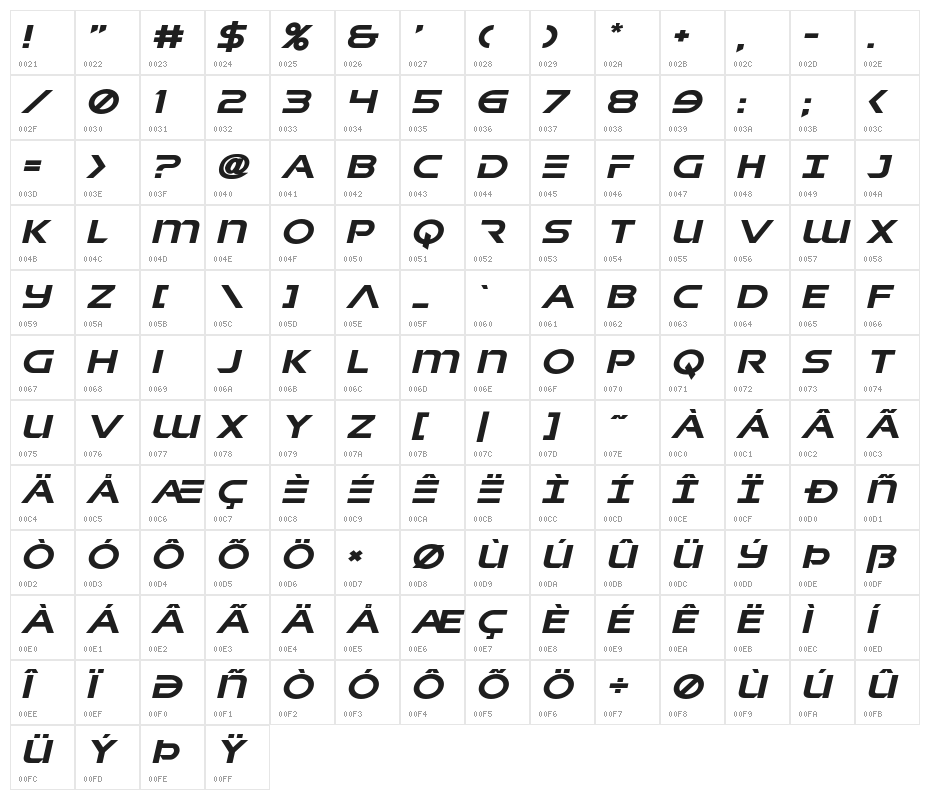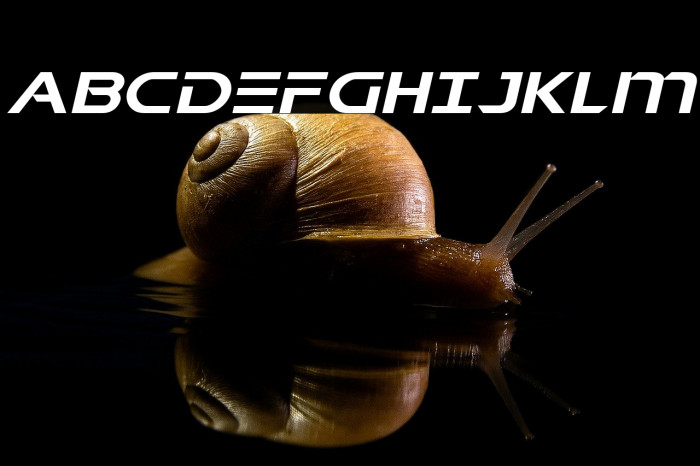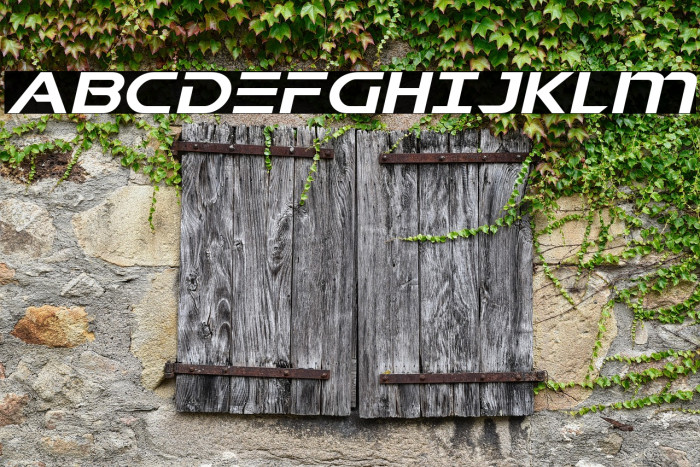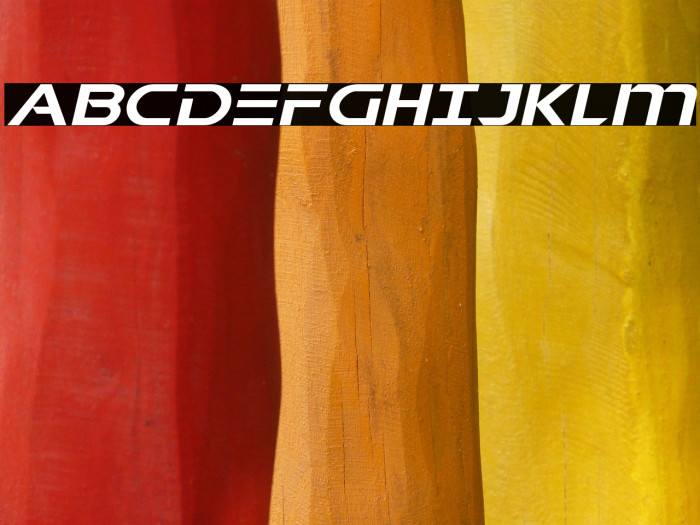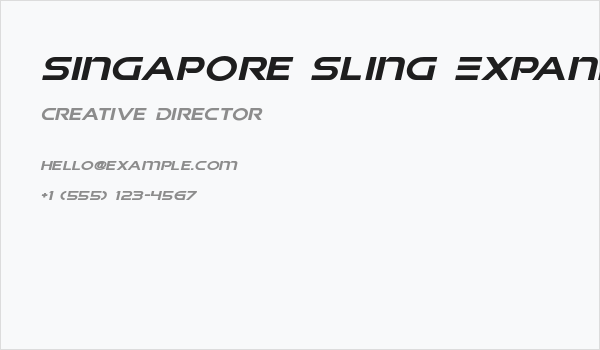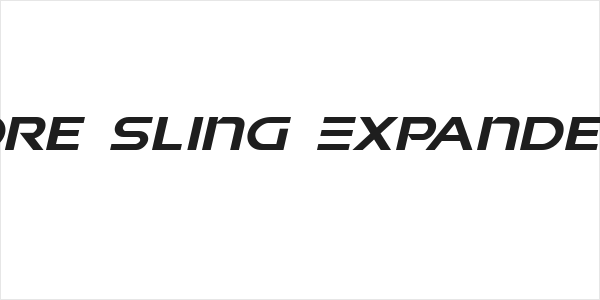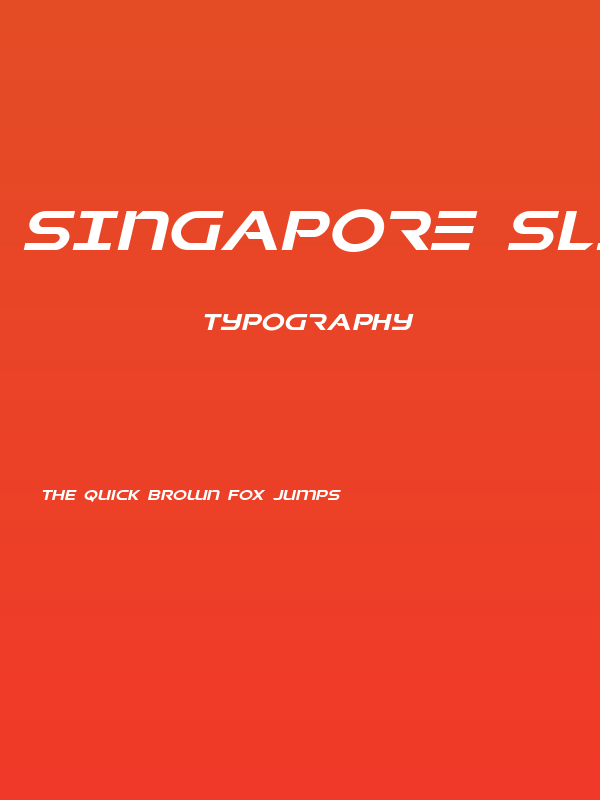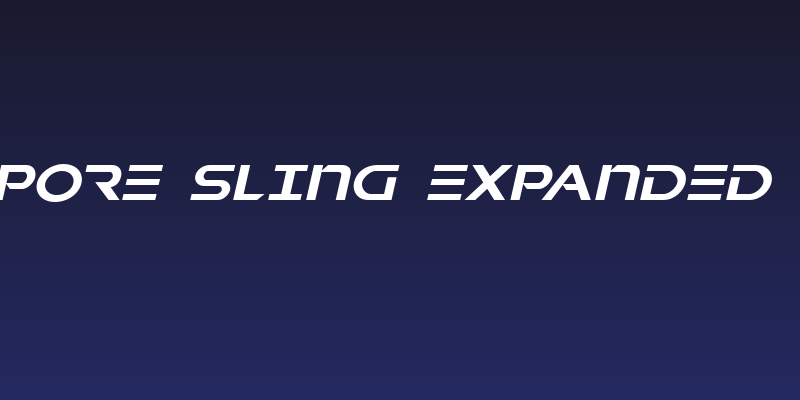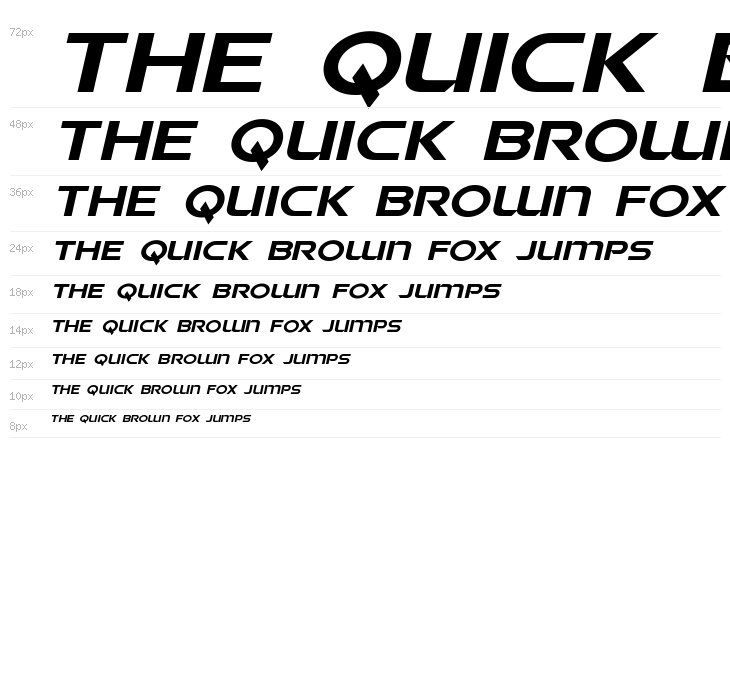
Singapore Sling Expanded Italic Font
Singapore Sling Expanded Italic Description
This font features a dynamic and modern design with an italicized style that gives it a sense of motion and energy. The characters are expanded, providing a wide stance that enhances readability while maintaining a sleek appearance. The strokes are consistent in weight, offering a uniform look across all characters. The font includes both uppercase and lowercase letters, numerals, and a variety of special characters, making it versatile for different design needs. Its futuristic and bold style makes it suitable for projects that require a contemporary and impactful visual presence.
| Use Case | Headlines, Logos, Digital Media |
| Proposed Projects | Ideal for branding, advertising, and digital media projects that require a modern and energetic look. |